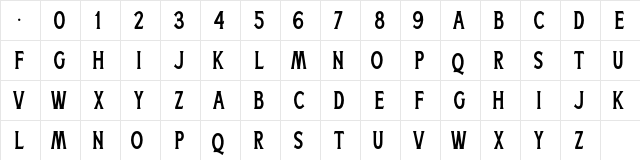
Boatman Regular (Free Personal Use) Regular
| Foundry | YdhraStudio |
| Designer | Yudha Rahmat Ageng |
Design Context for Boatman Regular (Free Personal Use) Typeface
Boatman Regular (Free Personal Use) offers clean, dependable letterforms without strong stylistic allegiance, making it a practical choice for designers who need flexibility.
Pro Tip: Use Boatman Regular (Free Personal Use) in both headline and body roles to test its range before committing to a single application.